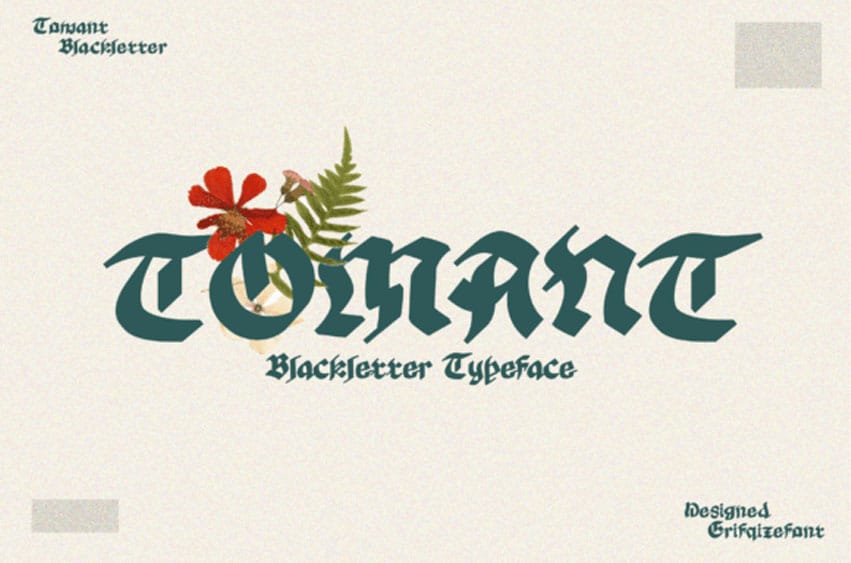
Tomant Font is a striking display typeface that blends the boldness of medieval letterforms with a touch of natural elegance. Designed by Erifqizefont, it brings together the sharp, angular presence of traditional blackletter with an unexpected softness — reflected through the floral accents featured in its presentation.
Each glyph is crafted with strong structure and classic rhythm, yet retains a sense of modern refinement. It’s the perfect typeface for projects that seek both drama and beauty — from vintage metal posters to contemporary gothic branding.
Tomant doesn’t just speak — it commands. It’s blackletter with soul, built for those who design with conviction.